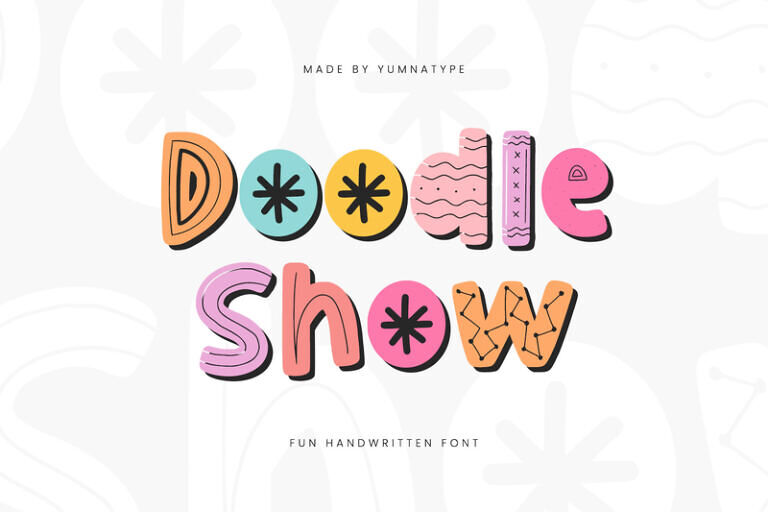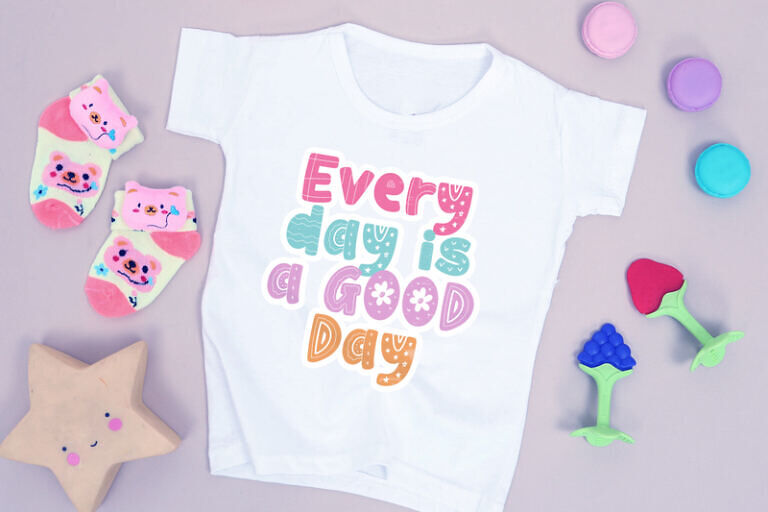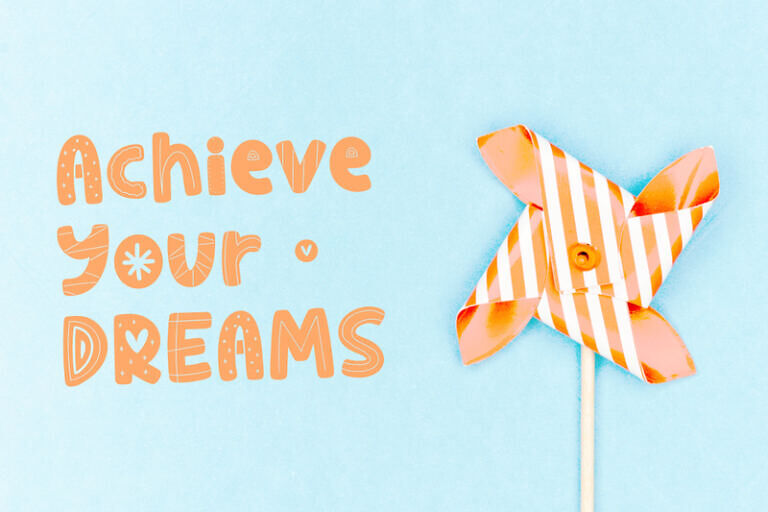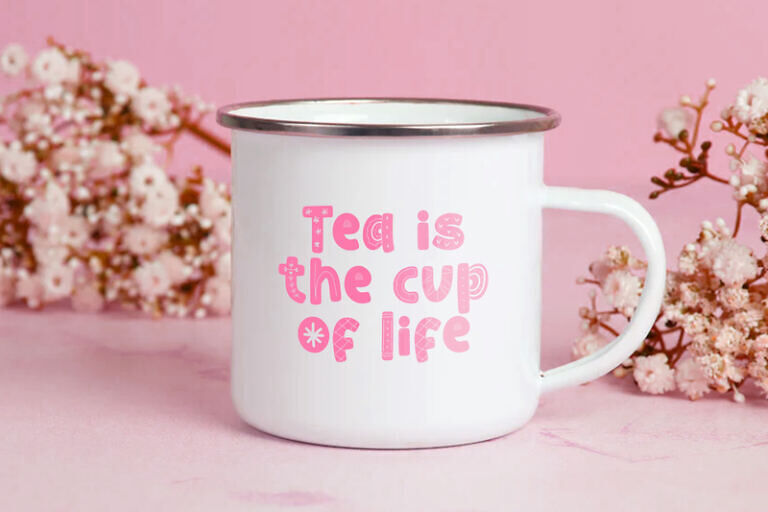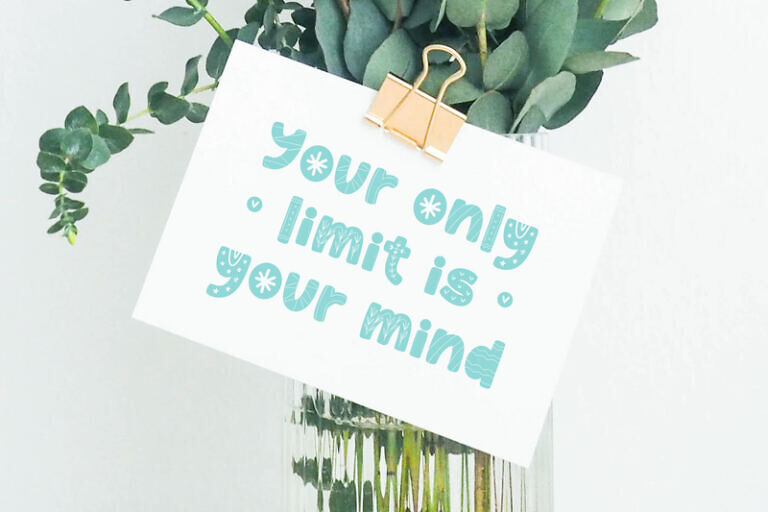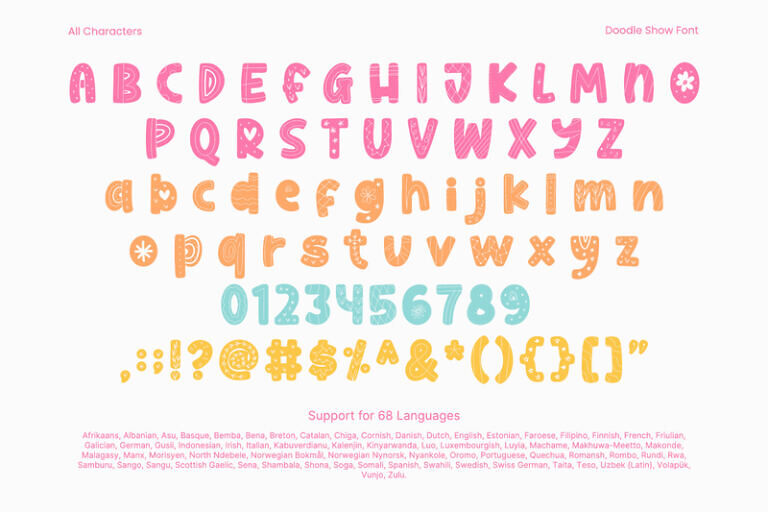
Doodle Show is a whimsical handwritten font that brings a playful touch to your designs. Crafted with a fun style this font captures the essence of imagination. The doodle elements add a sense of whimsy and delight to your text. From hearts and stars to arrows and swirls, these charming details enhance the font’s overall aesthetic and bring your designs to life.
With its rounded shapes and consistent letter proportions, Doodle Show exudes a sense of warmth and approachability. This font fits in headlines, logos, posters, flyers, branding materials, greeting cards, print media, editorial layouts, and many more designs. Find out more ways to use this font by taking a look at the font preview.